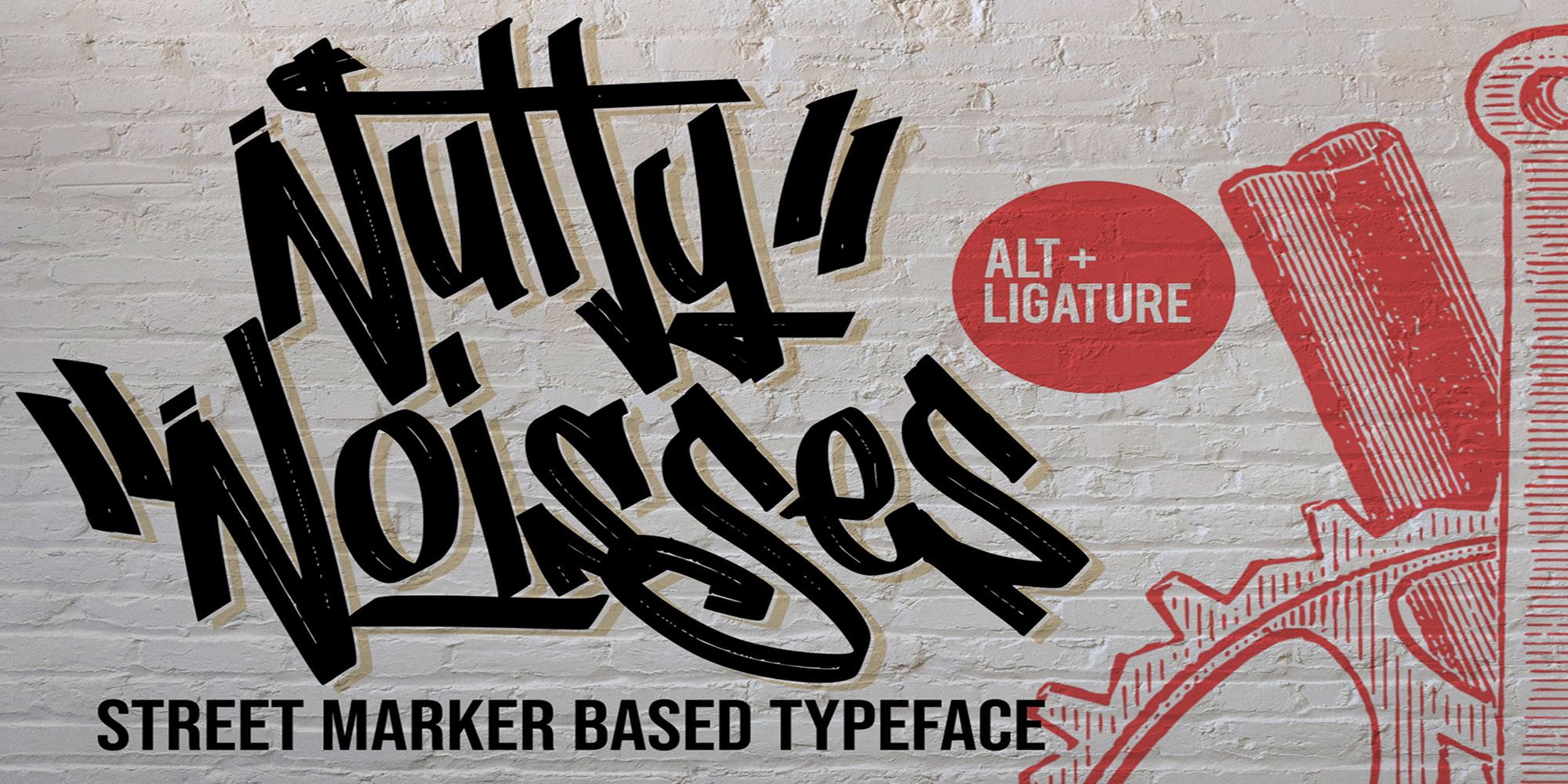
Looking to inject your designs with a burst of playful energy, quirky charm, and an unmistakably bold personality? Nutty Noisses Font Free Download offers a fantastic opportunity to explore a typeface that truly stands out. It's crucial to remember, however, that while a Nutty Noisses Font Free Download might be available for personal and testing purposes, a commercial license is required for any professional or revenue-generating projects. This ensures legal compliance and provides essential support to the talented font designers.
The Nutty Noisses Font is exceptionally well-suited for projects that demand a whimsical, energetic, or slightly rebellious aesthetic. Its often irregular, hand-drawn, or vibrantly textured letterforms make it an excellent choice for children's book titles, animated series branding, and playful food packaging (think snacks or cereals). It's ideal for event posters for music festivals or fun fairs, creative social media graphics, and personalized invitations where a loud and lively presence is desired. Furthermore, consider Nutty Noisses Font for toy design, quirky merchandise, and any branding that aims to convey excitement, individuality, and a touch of delightful chaos.
What makes the Nutty Noisses Font so exciting is its inherent ability to capture attention and spark a sense of fun. It often features exaggerated forms, a bouncy rhythm, or charming imperfections that set it apart from more conventional typefaces. This characteristic allows it to communicate a sense of uninhibited creativity, joy, and a fearless spirit, making your message resonate with genuine personality. It's a font that doesn't just display text; it shouts with character, adding a layer of vibrant energy and captivating appeal to any creative endeavor. Its distinctive aesthetic ensures your work will stand out with undeniable force and a memorable, playful presence.
The Nutty Noisses Font family typically focuses on delivering its strong, unique stylistic elements. You'll often find a powerful Regular weight, which might be complemented by specific bold variations to enhance its visual impact. Due to its decorative or display nature, the family might also include unique alternates or stylistic sets that offer variations in its quirky charm, providing additional creative options for crafting truly unique and impactful typographic compositions.